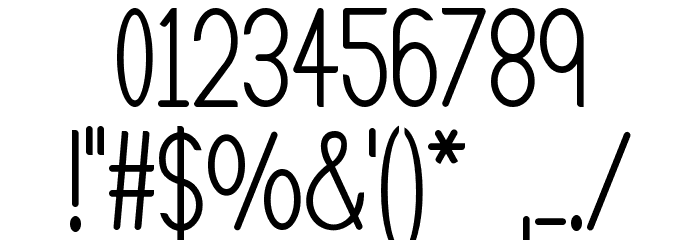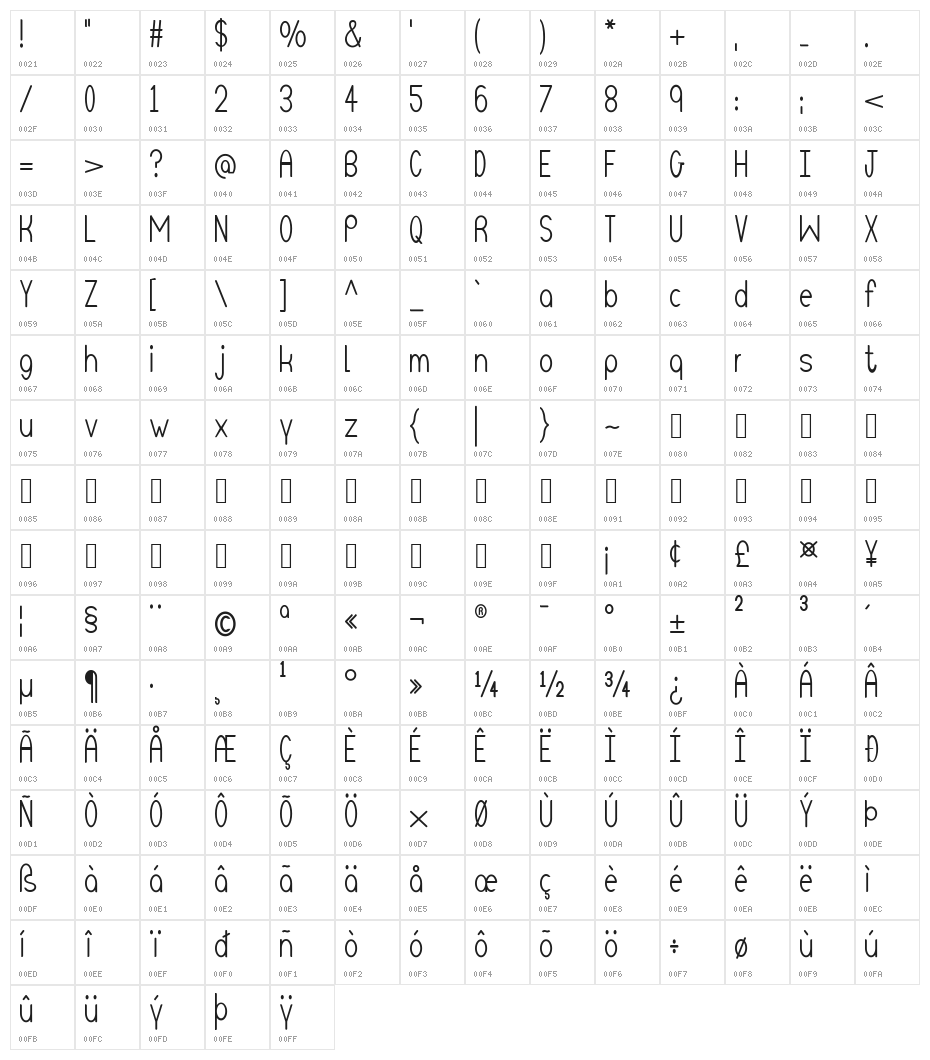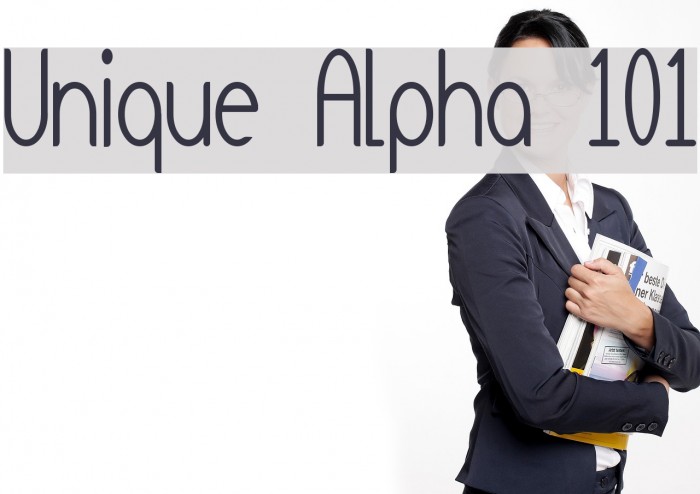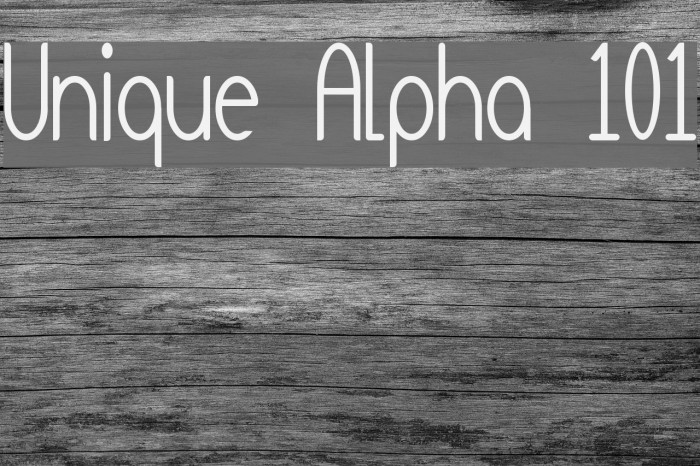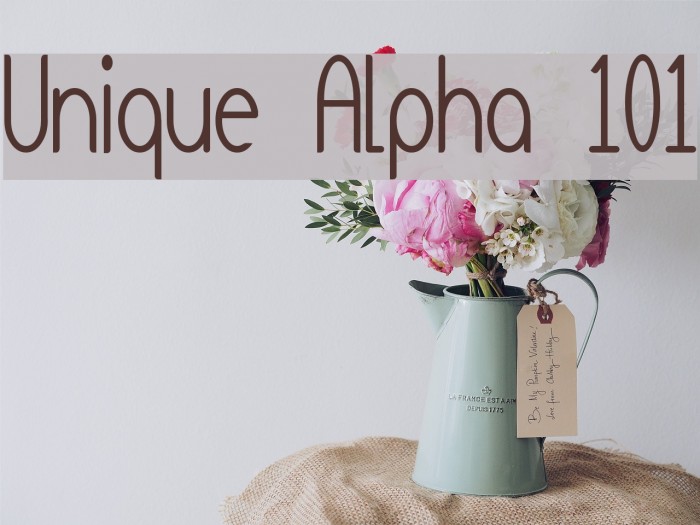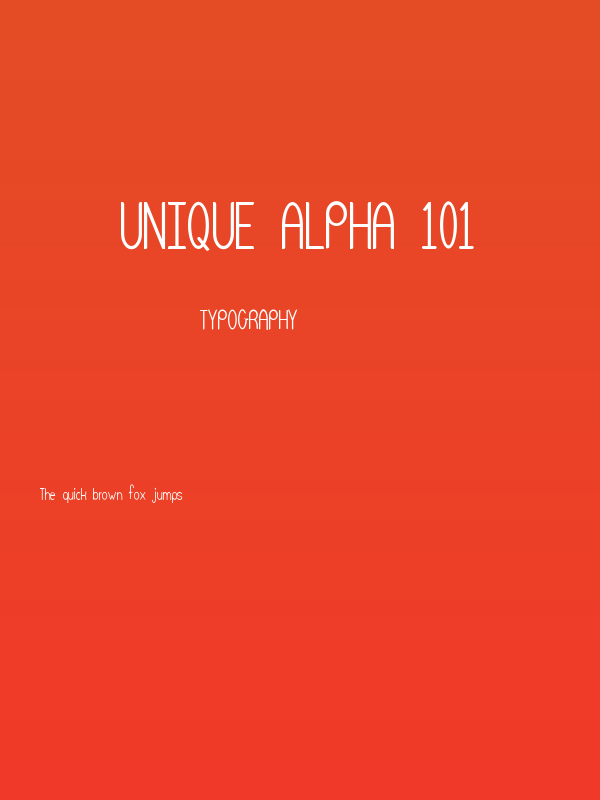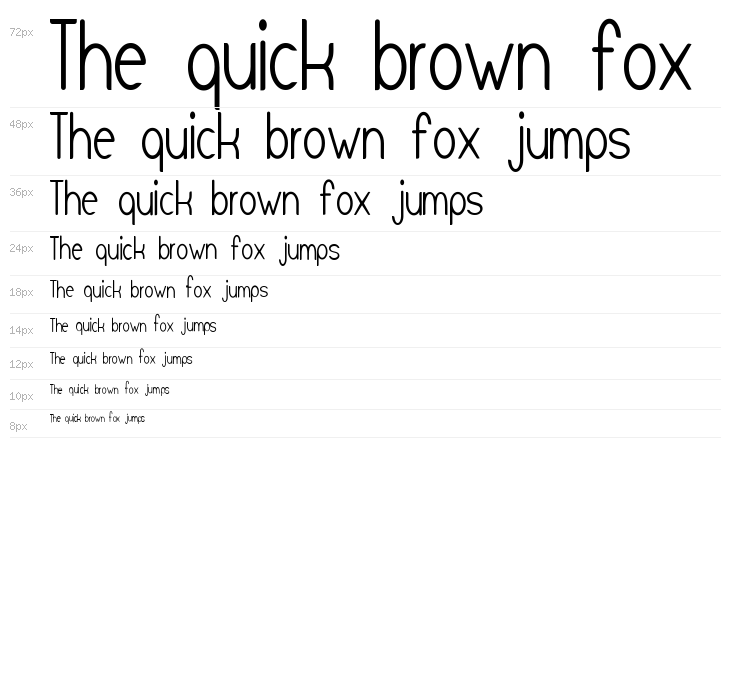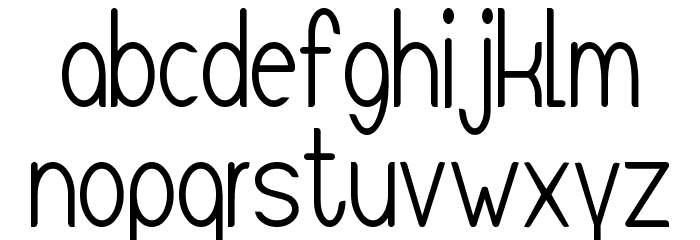
Unique Alpha 101 Font
Unique Alpha 101 Description
This font features a clean and modern sans-serif style with a distinct geometric structure. The characters are uniform in width, giving it a monospaced appearance, yet they maintain a playful and approachable feel. The uppercase letters are tall and narrow, while the lowercase letters have a rounded, friendly look. The numbers are consistent with the overall style, ensuring readability and balance. Special characters are well-integrated, maintaining the font's cohesive design. This font is versatile, suitable for both digital and print media, and can be used to convey a contemporary and professional tone.
| Proposed Projects | Ideal for branding, web design, posters, and editorial layouts where a modern and clean aesthetic is desired. |